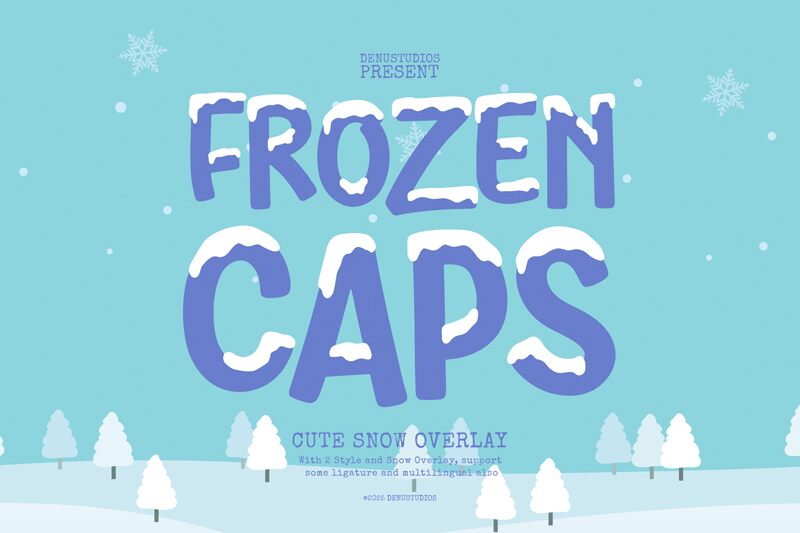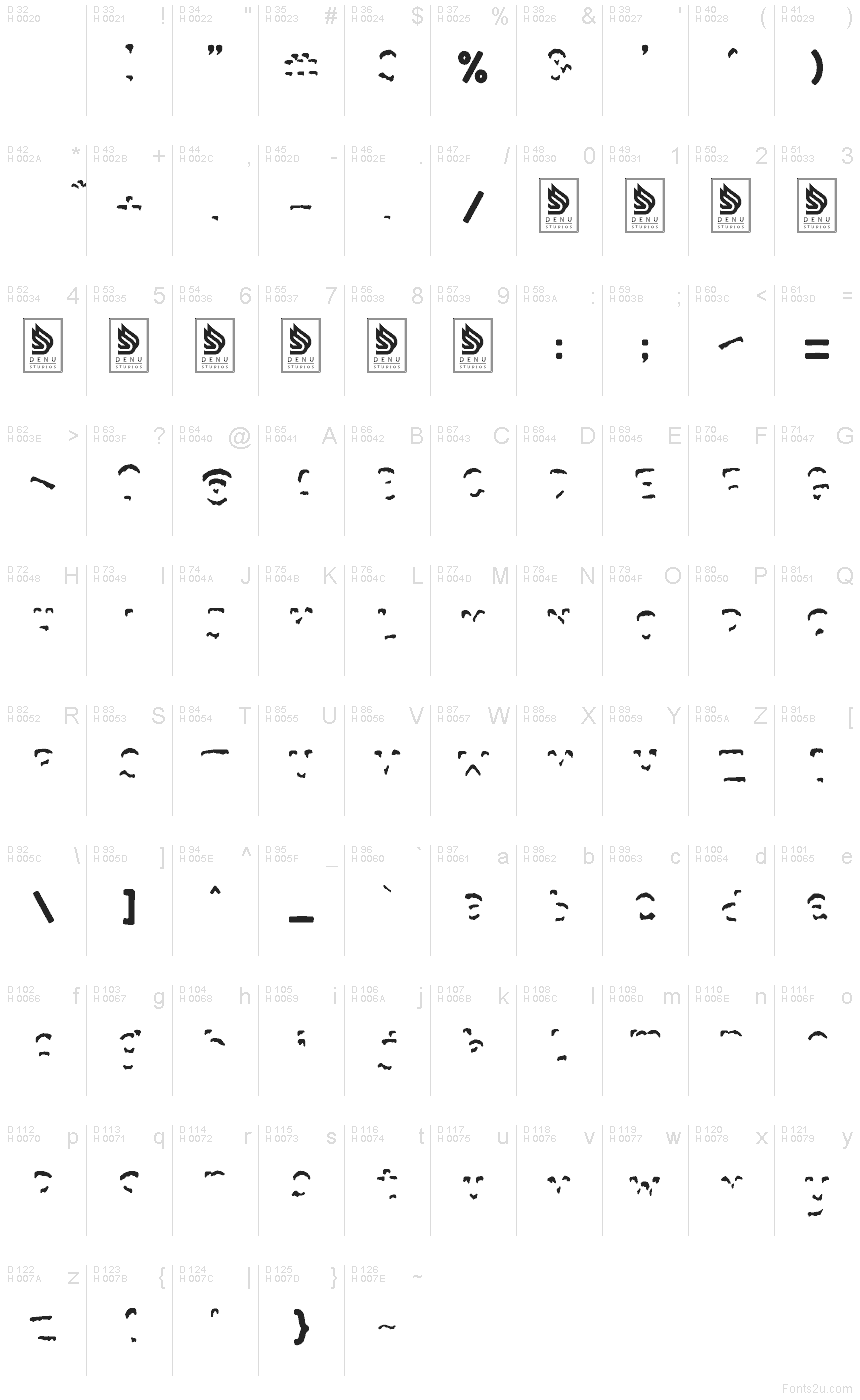
Frozen Caps Overlay font by Denustudios is a free holiday Christmas decorative overlay typeface that turns any lettering into a snowy scene in seconds. Each blobby, hand-drawn snow cap hugs the tops of your text like thick frosting, giving even the plainest font a cozy, wintry charm without redrawing a thing. Drop these crunchy, ink-black overlays onto the Frozen Caps family or your existing type, and your design instantly feels like it’s straight out of a storybook winter market.
Using Frozen Caps Overlay, this free font shines on Christmas cards, mugs, gift packaging, posters, party invites, and seasonal social posts. The playful, uneven snow shapes read clearly at small sizes but look especially magical when used big on headlines and product names. Try pairing the overlays with a simple sans serif or chunky script beneath, so the snowy tops stay the hero while the base letters keep everything readable.
Frozen Caps Overlay